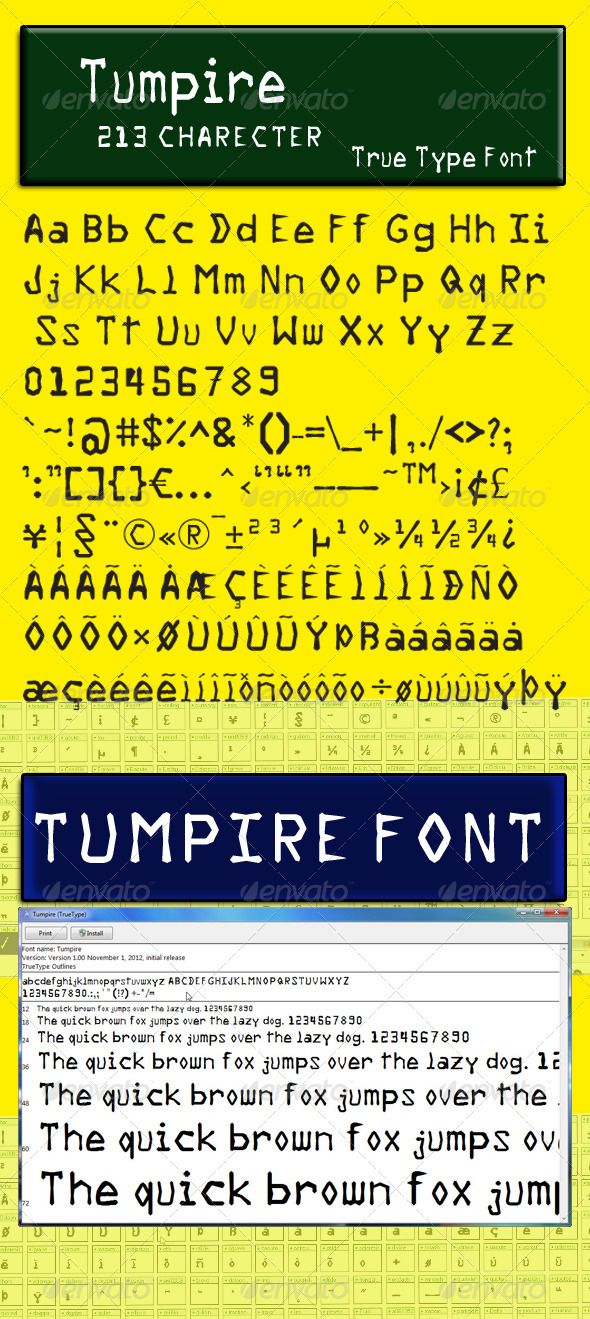
Tumpire Font – True type
The tumpire Font is perfect for holly day cards, web, business logos and much much more. This font is also suitable for a text,letter or whatever you want